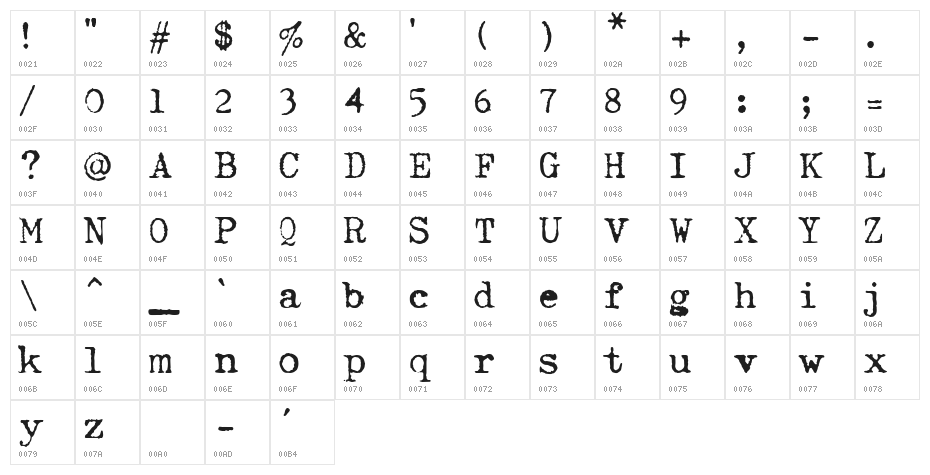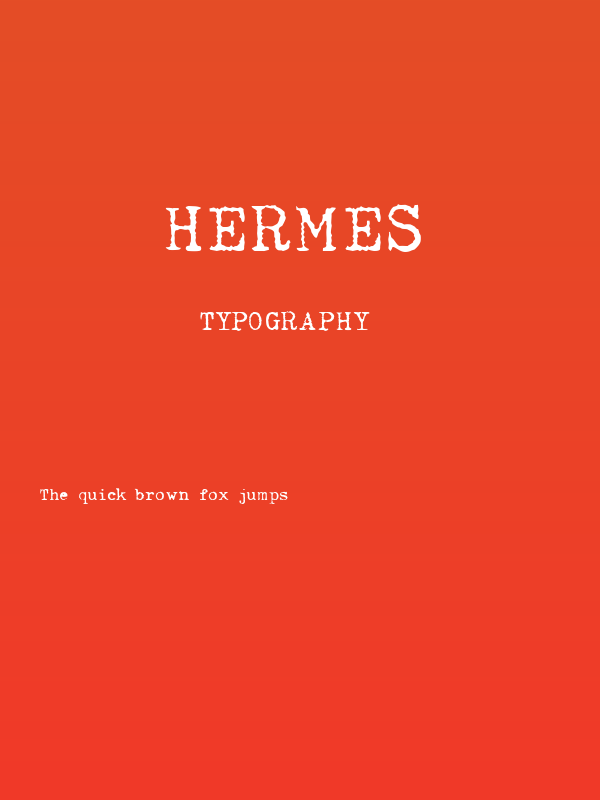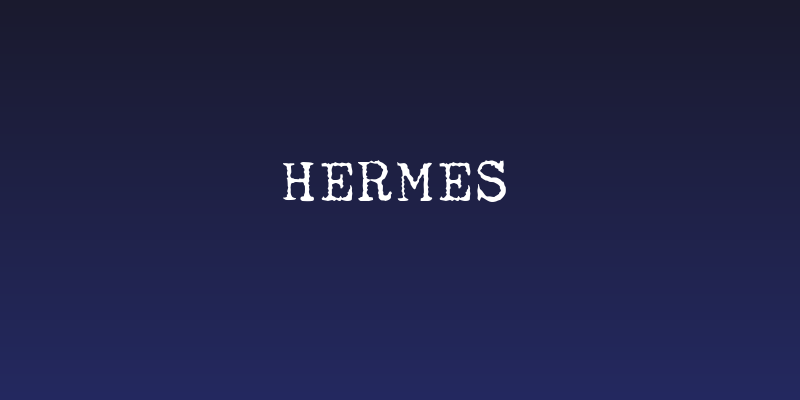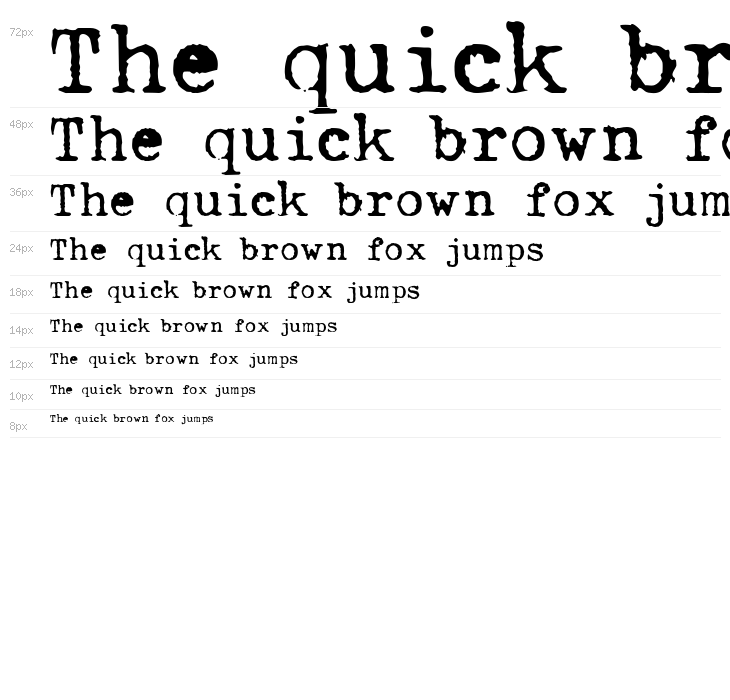
Hermes Font
Hermes Description
This font exhibits a distinctive, vintage typewriter style with a rough, textured appearance that suggests a sense of history and character. The uppercase and lowercase letters are well-defined, with slightly irregular edges that give them a handcrafted feel. The numerals and special characters maintain this aesthetic, adding to the font's overall charm. The font's design is reminiscent of old typewriter fonts, making it ideal for projects that require a retro or nostalgic touch. Its unique texture and style make it stand out, while still being readable and versatile.
| Proposed Projects | Ideal for retro-themed designs, vintage posters, book covers, and branding that requires a nostalgic touch. |